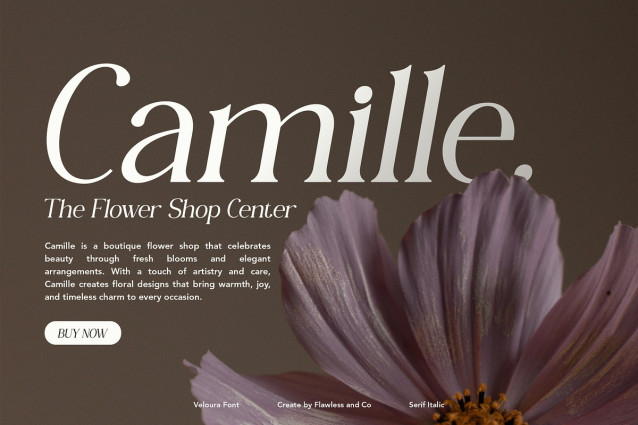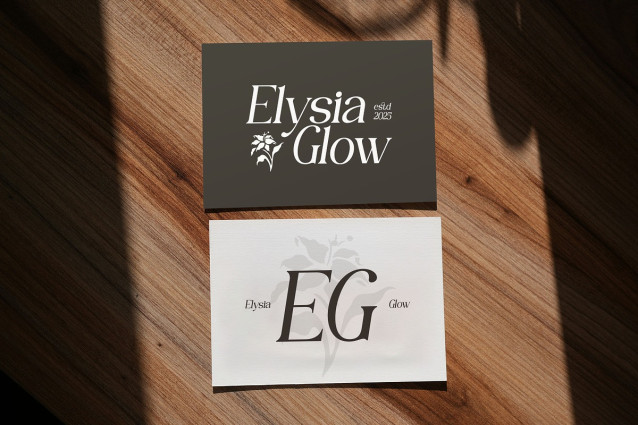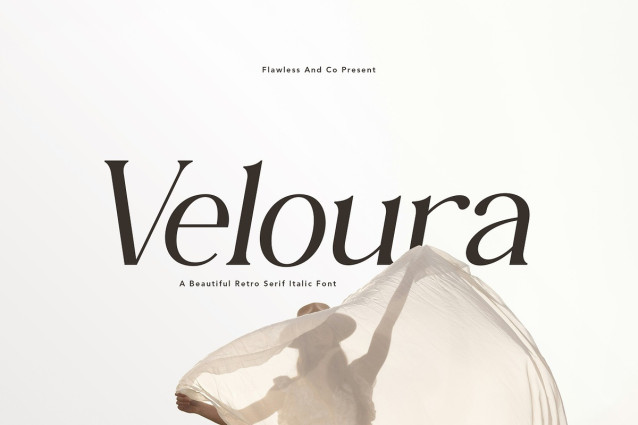
Veloura Serif Font
Veloura Serif Font is a beautiful retro serif italic font designed to bring timeless elegance and artistic flair to your projects. With its graceful curves, refined details, and nostalgic retro touch, Veloura perfectly balances sophistication with creativity. Ideal for both modern and classic designs, this typeface elevates your work with charm and character. Whether used in bold headlines or subtle body text, Veloura captures attention and creates a lasting impression.